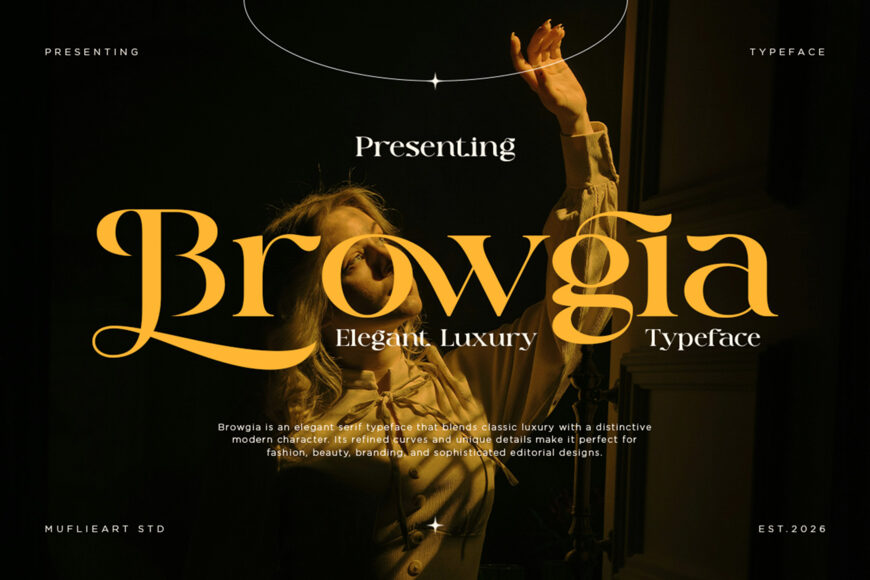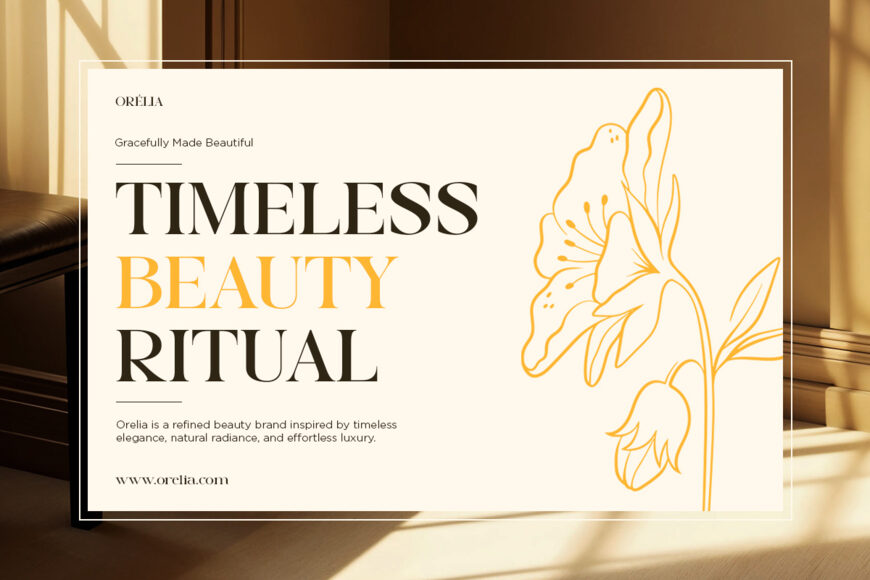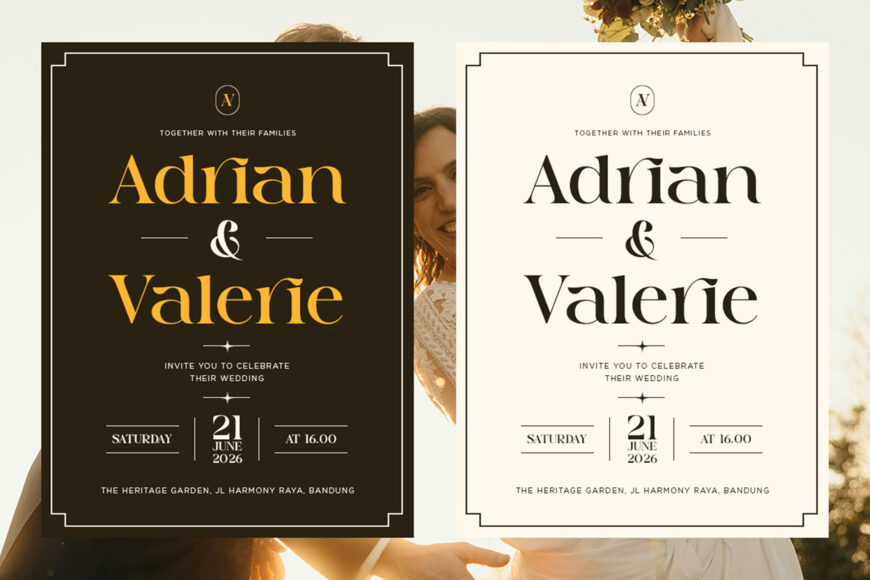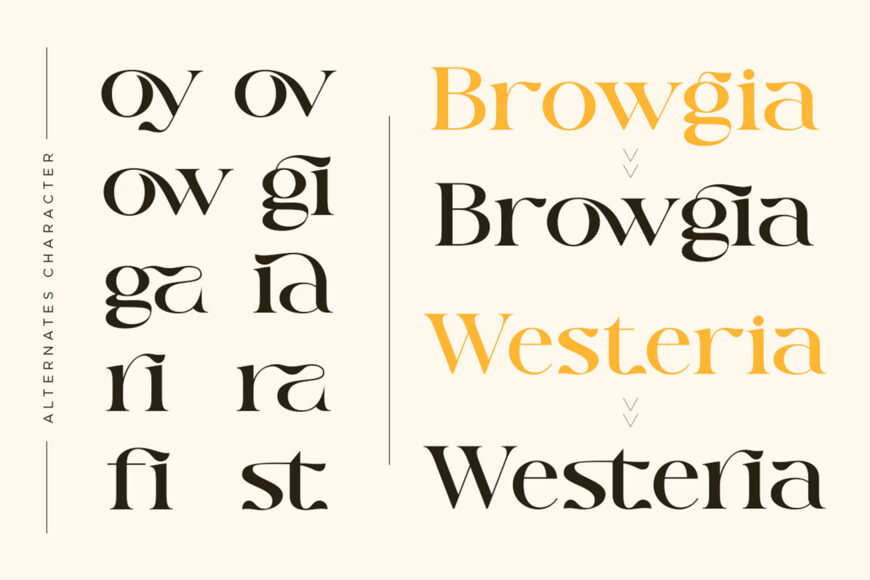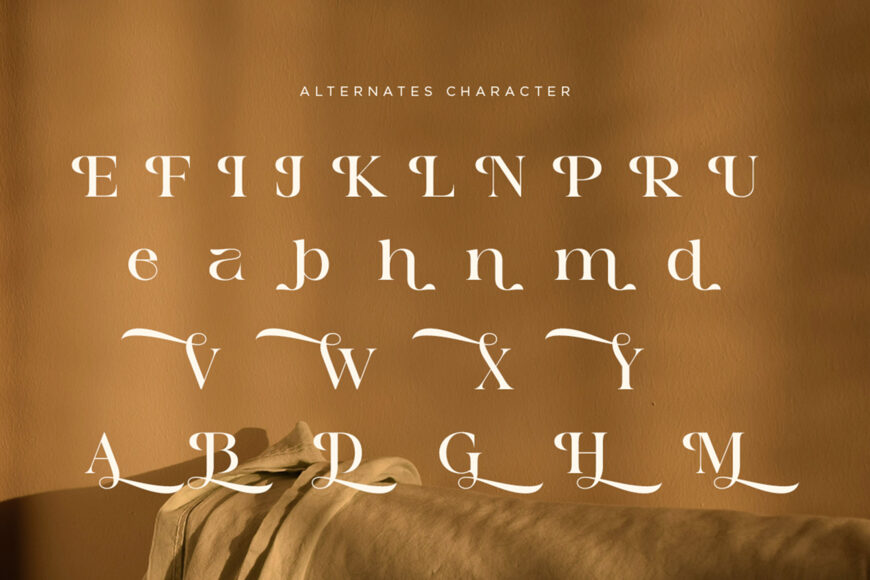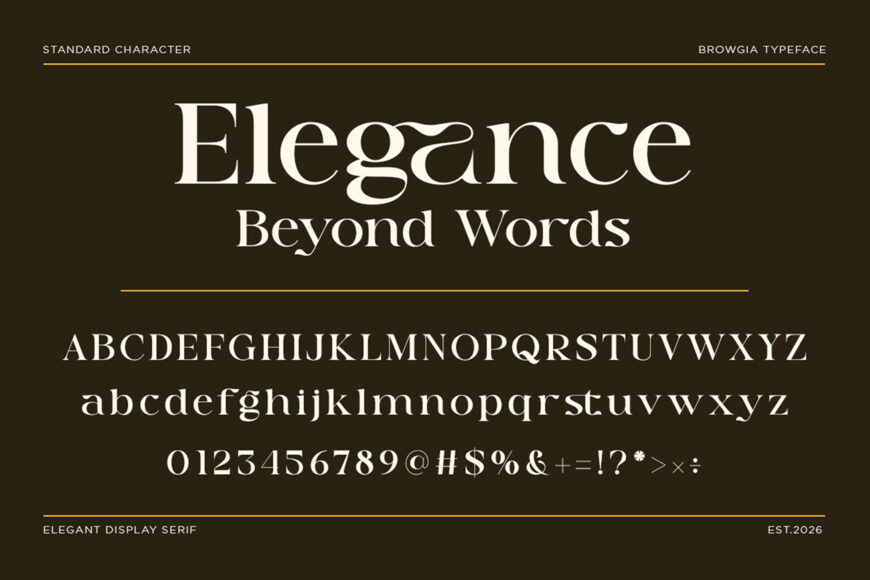
Browgia Font
Meet Browgia, an elegant modern serif designed to bring a luxurious, refined, and minimalist feel to your creative projects. Its distinctive uppercase letters, stylish alternates, and ligatures offer plenty of flexibility for customization.
Browgia is ideal for logos, brand identities, websites, social media graphics, wedding invitations and stationery, business cards, greeting cards, posters, magazines, agendas, and more. Whether you’re creating a sophisticated brand or adding a classy touch to printed materials, Browgia delivers a clean and timeless look.